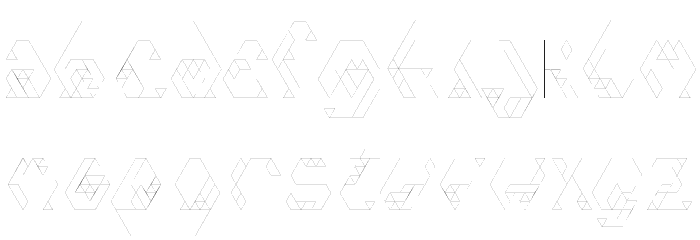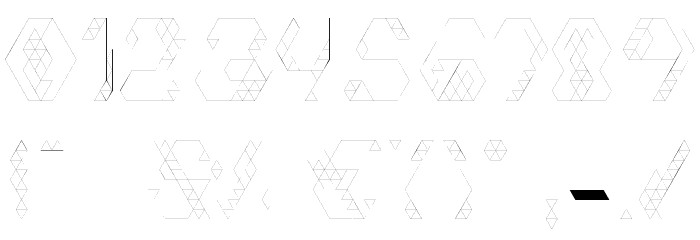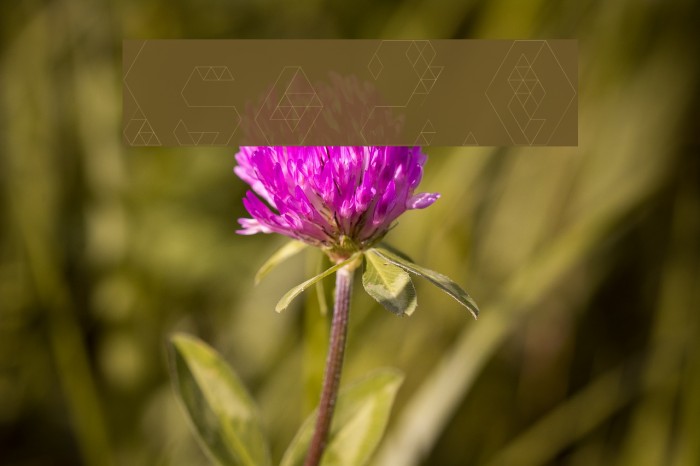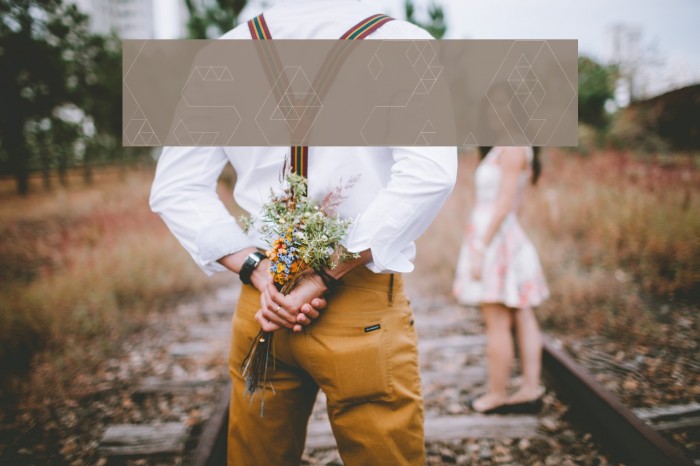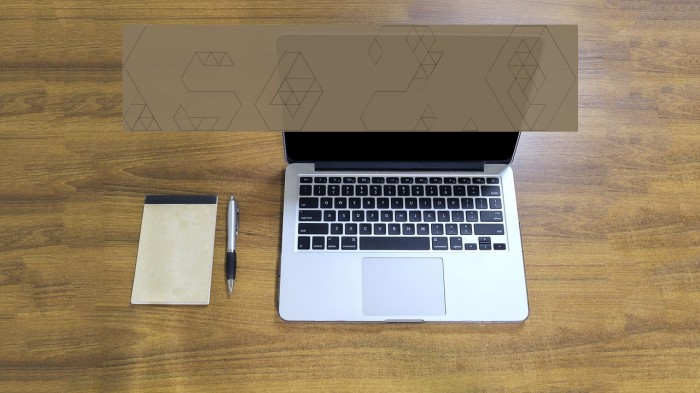
Iso 2.0 Font
This font features a geometric and futuristic design, characterized by its use of hexagonal shapes and intricate line patterns within each character. The letters and numbers are constructed with a series of interconnected lines and angles, creating a complex and visually engaging appearance. The font's unique style is reminiscent of isometric designs, giving it a three-dimensional effect. The overall look is modern and tech-inspired, making it suitable for projects that require a cutting-edge and innovative aesthetic. The characters are evenly spaced, ensuring readability despite the intricate design.
A geometric, futuristic font with hexagonal and isometric design elements.
- Proposed Projects: Ideal for tech branding, sci-fi themed projects, digital art, and modern advertising.